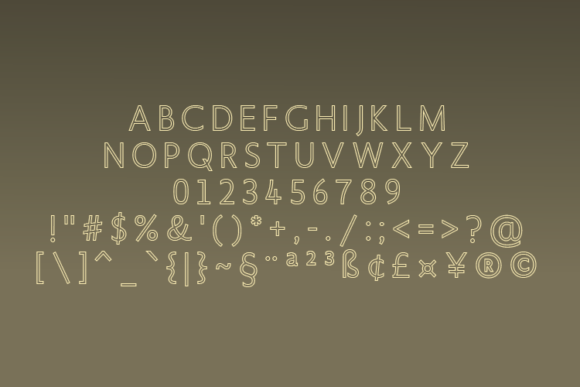
Unleashing the Power of Blankco Outline Medium Font
Do you remember that moment when you finally found the perfect font to bring your design project to life? The moment when everything clicks, and your vision starts to take shape? For designers, that moment is often the result of careful selection and experimentation with typography. And for those who are about to discover it, we have some exciting news: Blankco Outline Medium Font is here to revolutionize your creative process.
Blankco Outline Medium Font is a fresh, geometric, sans-serif font that’s as versatile as it is stylish. With its big x-height value, geometrical letterforms, sharp edges, and small stroke contrast, this typeface is a masterclass in modern design. Whether you’re working on a magazine, poster, branding, or website, Blankco Outline Medium Font is the perfect companion to help you create something truly remarkable.
Blankco Outline Medium Font Features
- Font Family: Blankco Outline Medium, a unique font with an outline style, ideal for creating visual hierarchy and emphasis in designs.
- Character Set: Includes a comprehensive set of characters, including Latin, Cyrillic, and Greek alphabets, as well as punctuation and symbols.
- Unique Characteristics: The Blankco Outline Medium font features a distinctive outline style, with varying line widths and subtle texture, adding a touch of sophistication to designs.
Designer Review: Blankco Outline Medium Font
I recently had the chance to work with Blankco Outline Medium Font, and I must say it’s a solid addition to any designer’s toolkit. ✨ One thing that really stands out is its versatility – it works beautifully for both digital and print projects, and its clean, modern aesthetic makes it perfect for a wide range of applications.
Another strength of this font is its readability. ✨ The open, airy feel of the characters makes it easy to scan and comprehend large blocks of text, making it a great choice for body copy. Additionally, the subtle texture of the font adds a touch of visual interest that keeps the text engaging.
- ⚠️ Limited character set: While the font includes a wide range of characters, it’s not exhaustive. Some languages may require additional fonts or substitutions.
- ⚠️ Not suitable for small text: The font’s open feel can make small text appear cluttered or difficult to read.
Overall, I’m impressed with Blankco Outline Medium Font. It’s a well-designed, versatile font that’s perfect for a wide range of projects. While it may have some limitations, I believe it’s a great addition to any designer’s toolkit.
Getting the Most Out of Blankco Outline Medium Font
Blankco Outline Medium Font is a versatile font that can be used for various designs, including:
- Body text